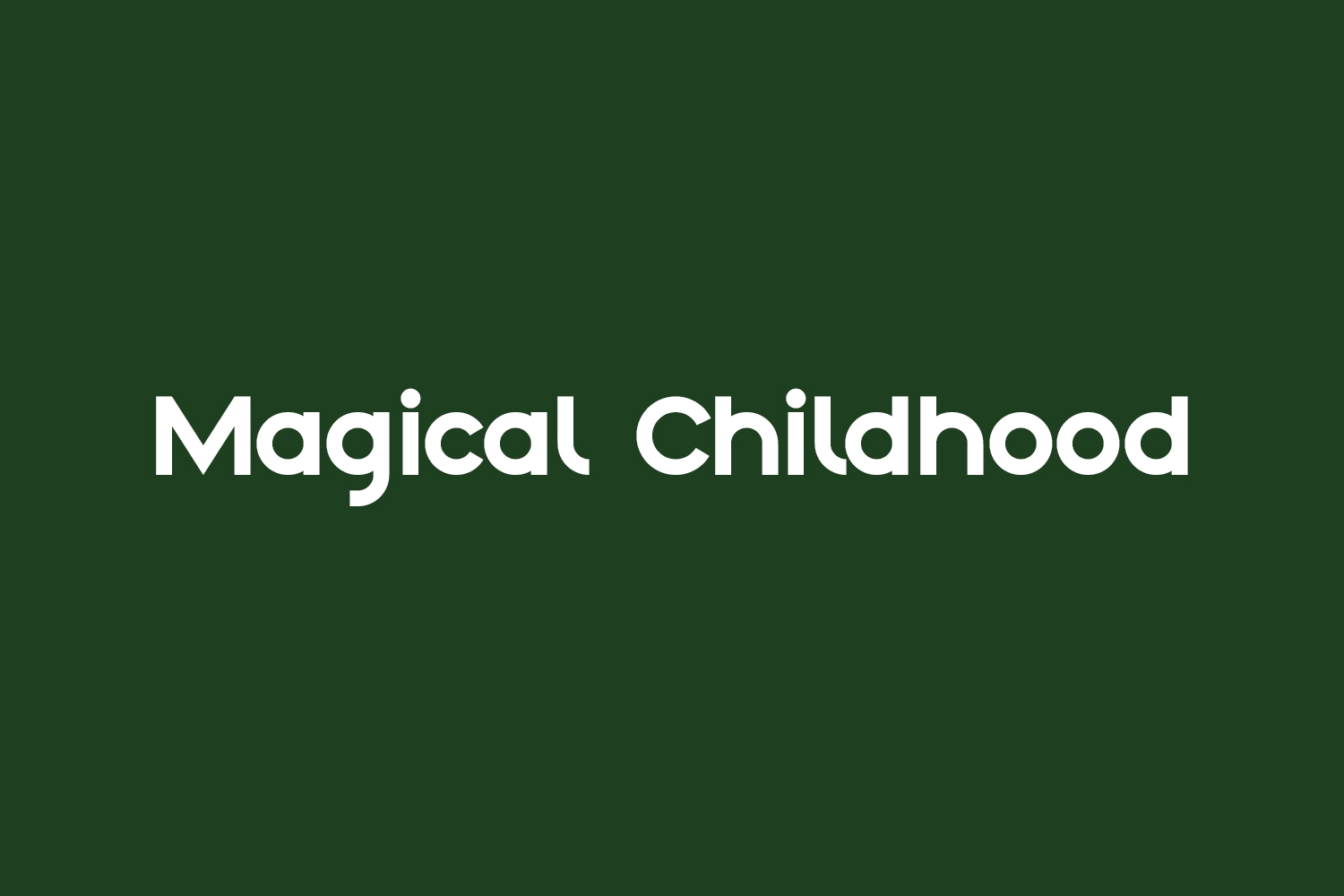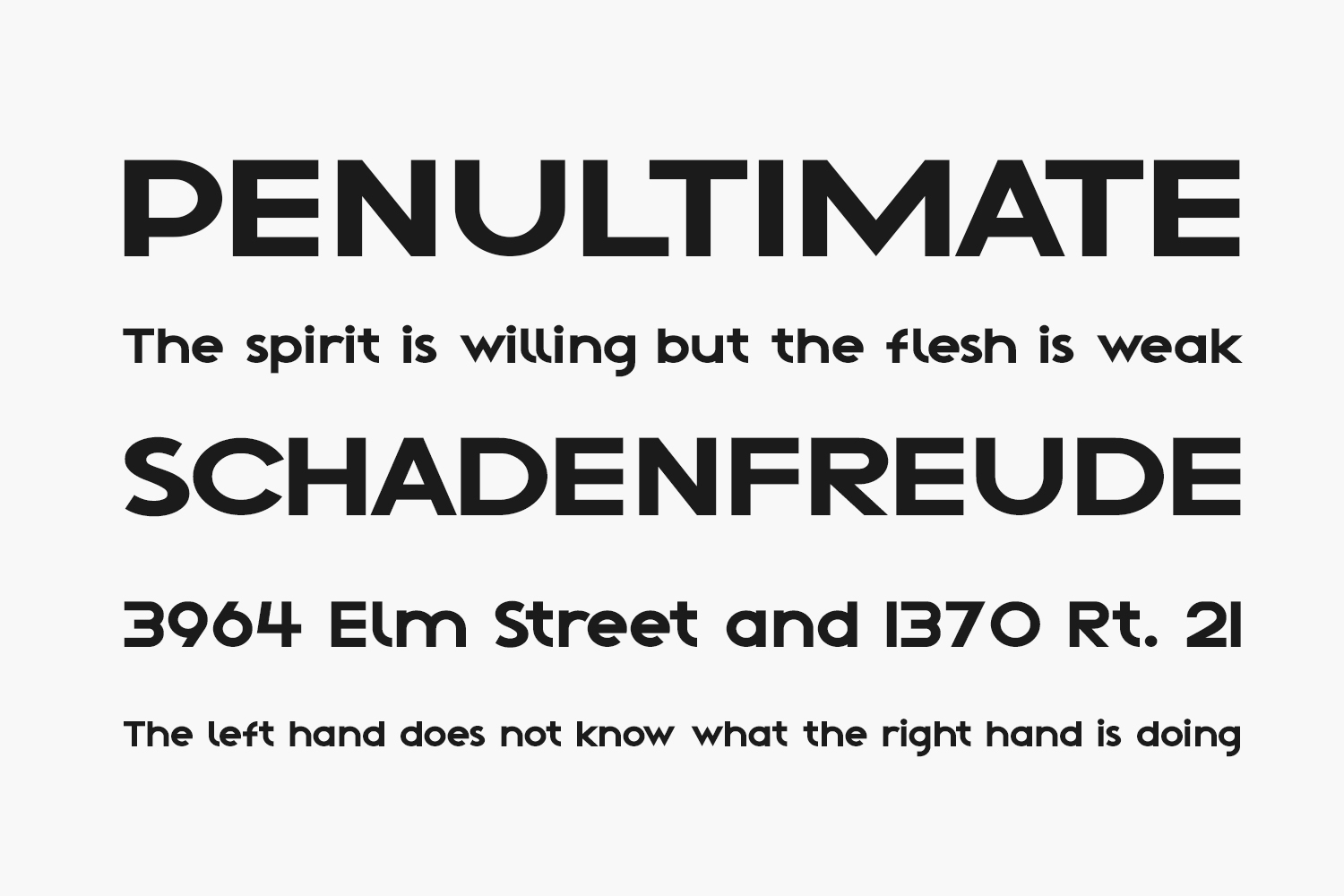
Magical Childhood Free Font Family is a vibrant and bold sans-serif typeface with a crisp and playful style, ideal for enhancing picture books, children’s stories, school-related content, and everyday design needs. Magical Childhood Free Font Family is free for personal use only. Please purchase the full version for commercial use.
Designed by Hawtpixel
Magical Childhood Rergular The quick brown fox jumps over the lazy dog
Magical Childhood Italic The quick brown fox jumps over the lazy dog